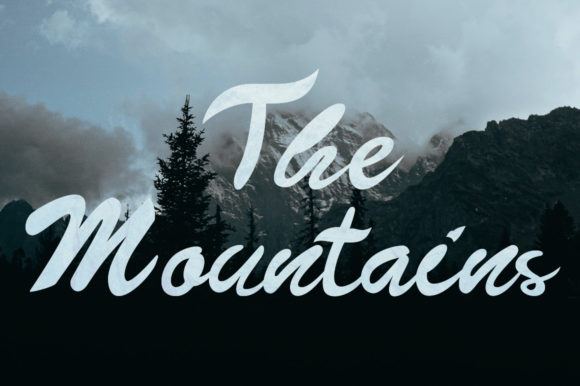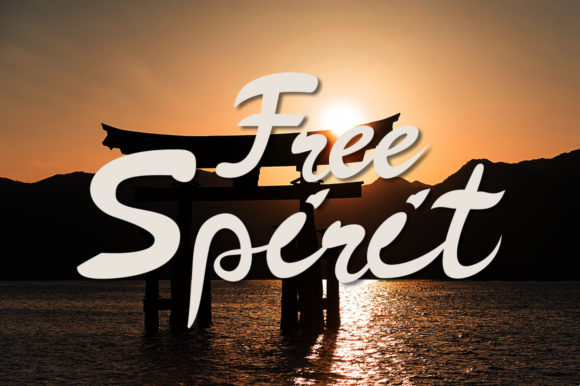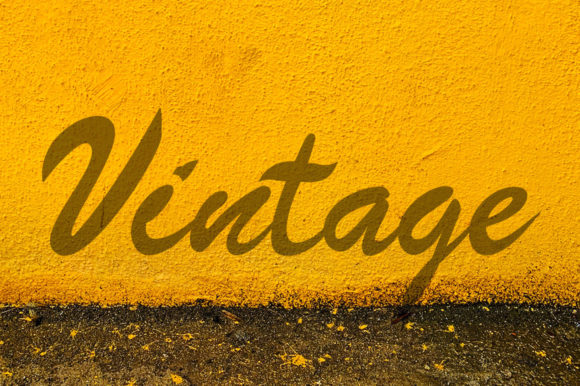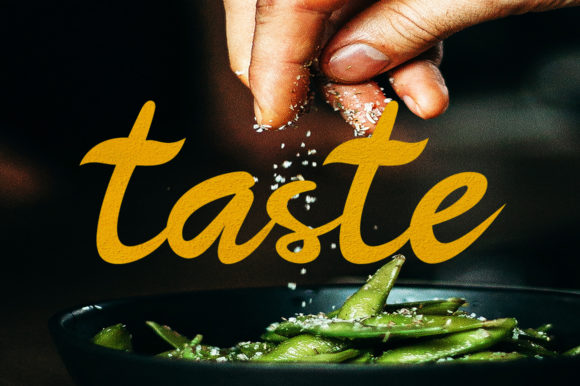
About Bilibo Font
Bilibo is a lovely paint brushed script font. It was made for packaging products, invitation cards, flyers, event fonts, posters, and all aspects that require high quality vibes. This font is PUA encoded which means you can access all of the glyphs and swashes with ease!